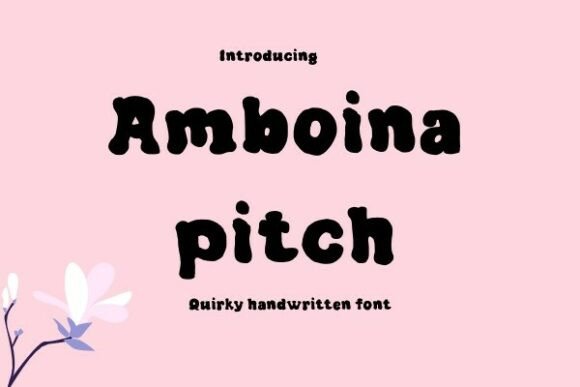
Introducing Amboina Pitch: The Ultimate Thick Handwritten Font for Designs that Speak Louder
In the world of typography, a font can make or break a design. It’s the perfect blend of style, elegance, and personality that can elevate a simple design into something extraordinary. If you’re a designer or crafter looking for a font that exudes rich character and casual elegance, look no further than Amboina Pitch. This thick handwritten font is perfectly versatile, making it the perfect choice for a myriad of applications.
The Perfect Font for Greeting Card Designs
When it comes to greeting card designs, you want a font that adds a personal touch and warmth to your well wishes. Amboina Pitch is the perfect choice. Its thick and handwritten style gives your cards a unique and authentic feel that will make them stand out from the rest. Whether you’re designing a birthday card, a wedding card, or a holiday card, Amboina Pitch is the perfect font to convey your message with style and elegance.
Adding a Touch of Artistic Flair to T-Shirt Prints and Coffee Mugs
Amboina Pitch is not just limited to greeting card designs. Its artistic flair makes it a perfect choice for T-shirt prints and coffee mugs. Imagine a beautifully designed T-shirt with Amboina Pitch as the font of choice. The result is a stunning piece of art that will make anyone who wears it stand out from the crowd. Similarly, Amboina Pitch can add a touch of warmth and personality to coffee mugs, making them perfect for gifts or personal use.
Creating Engaging Mockups with Amboina Pitch
Mockups are an essential part of the design process, allowing designers to visualize their ideas and make necessary changes before finalizing a design. Amboina Pitch can provide a unique and engaging focal point in mockups, making them more effective in communicating the design message. Whether you’re designing a website, a brochure, or a poster, Amboina Pitch can add a touch of personality and style to your mockups.
The Versatility of Amboina Pitch
One of the standout features of Amboina Pitch is its versatility. This thick handwritten font can be used in a wide range of applications, from greeting card designs to T-shirt prints, coffee mugs, and mockups. Its adaptability makes it a perfect choice for designers and crafters who want a font that can keep up with their creative demands. Whether you’re designing for print or digital media, Amboina Pitch is the perfect font to make your designs speak louder and appeal stronger.
Why Choose Amboina Pitch?
So why choose Amboina Pitch over other fonts? Here are just a few reasons:
- Unique and Authentic Style: Amboina Pitch has a unique and authentic style that will make your designs stand out from the rest.
- Perfectly Versatile: This thick handwritten font can be used in a wide range of applications, making it a perfect choice for designers and crafters.
- Artistic Flair: Amboina Pitch has an artistic flair that makes it perfect for designs that require a touch of creativity and style.
- Easy to Read: Despite its thick and handwritten style, Amboina Pitch is easy to read, making it perfect for designs that require clear communication.
In conclusion, Amboina Pitch is a thick handwritten font that exudes rich character and casual elegance. Its versatility makes it a perfect choice for a wide range of applications, from greeting card designs to T-shirt prints, coffee mugs, and mockups. With its unique and authentic style, artistic flair, and ease of readability, Amboina Pitch is the perfect font for designers and crafters who want to make their designs speak louder and appeal stronger.